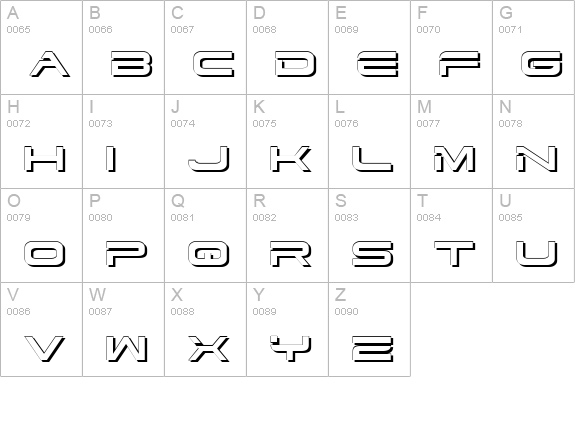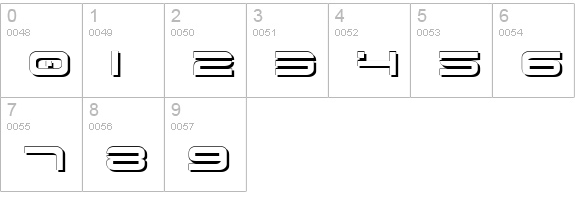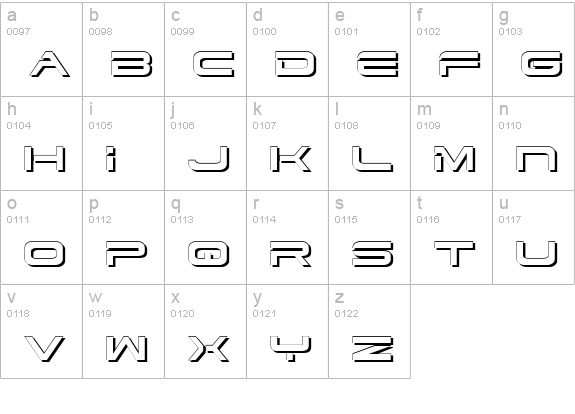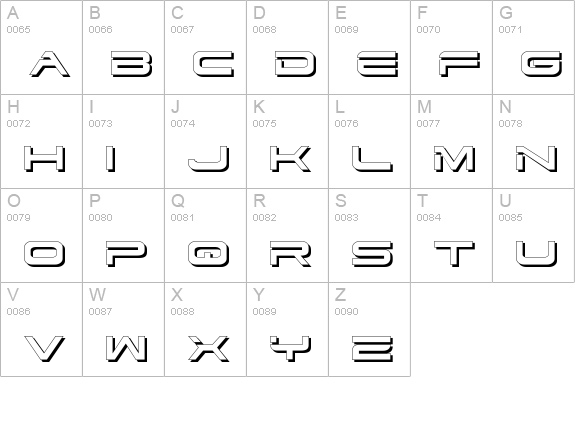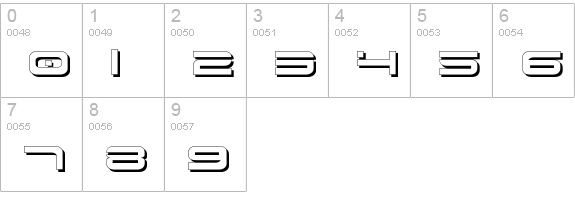
Dodger Shadow font is a stylish and modern typeface that exudes a sense of sophistication and elegance. Its sleek lines and bold lettering make it the perfect choice for a wide range of design projects, from logos to posters to social media graphics. The unique shadow effect adds depth and drama to any text, making it stand out and grab attention. What's even better is that Dodger Shadow font is completely free to use! You can easily download it at FontsMarket.com and start incorporating it into your designs right away. Whether you're a professional designer looking for a new font to add to your collection or a hobbyist looking to spice up your personal projects, Dodger Shadow font is the perfect choice. Don't miss out on this fantastic opportunity to elevate your designs with this stunning and versatile font.